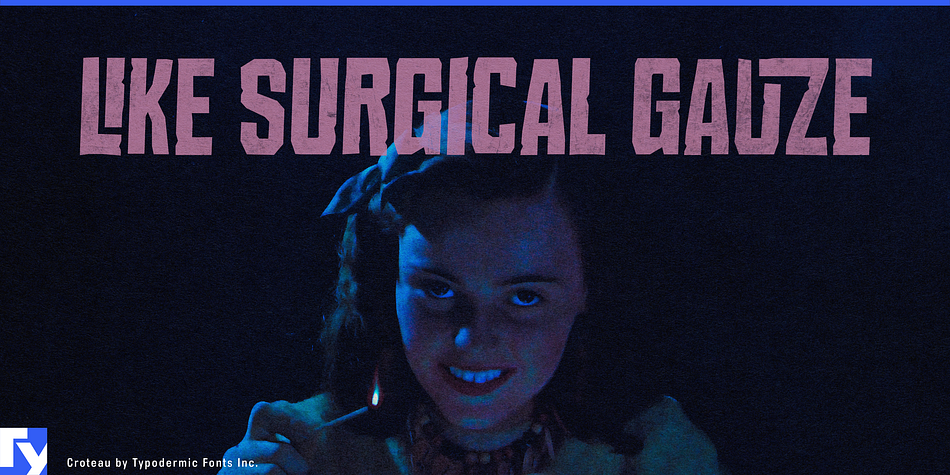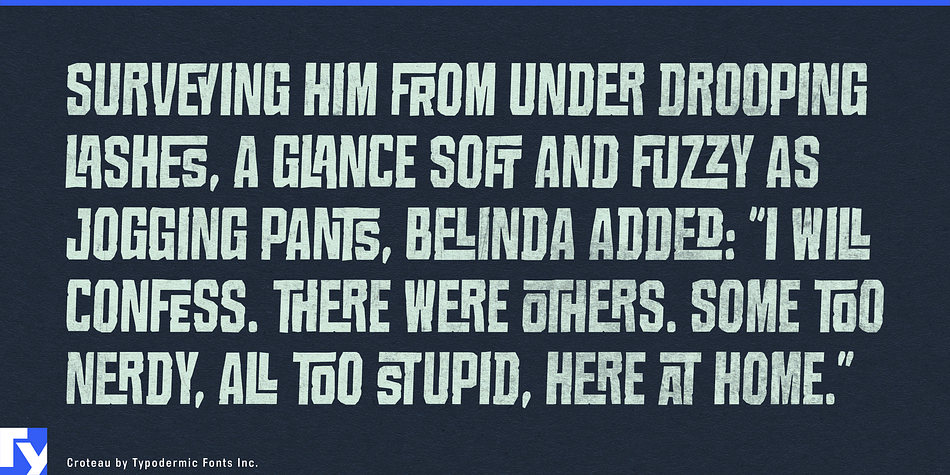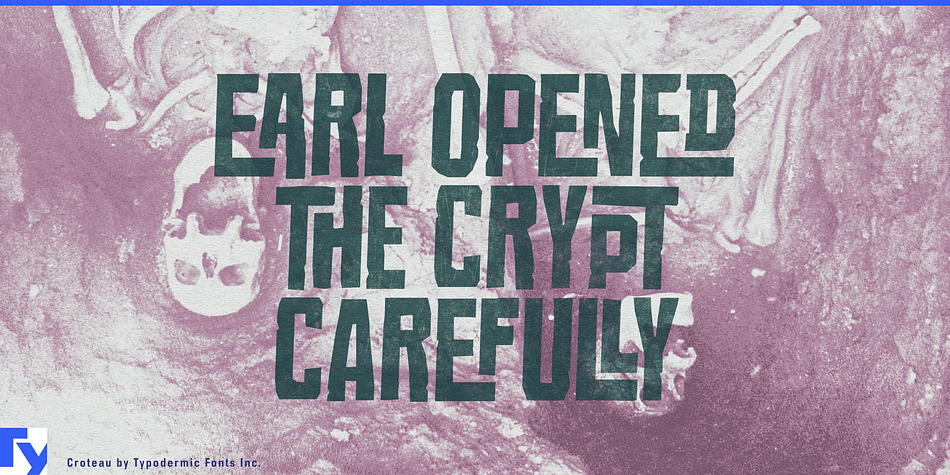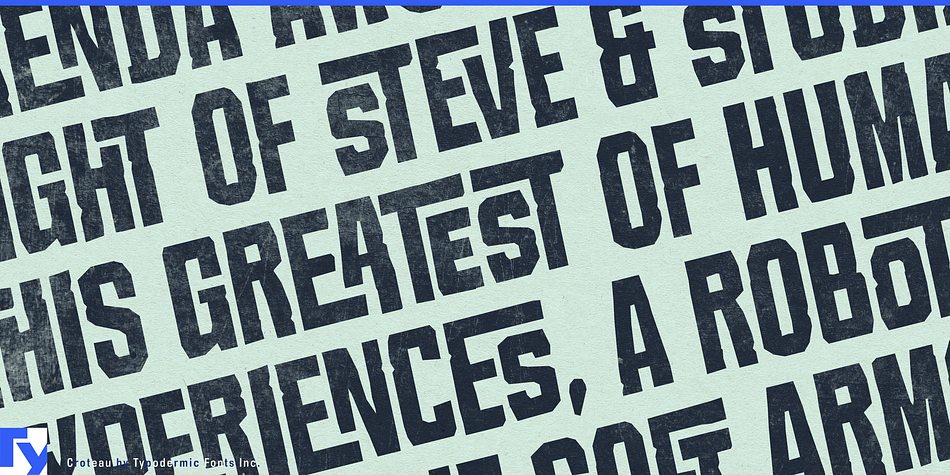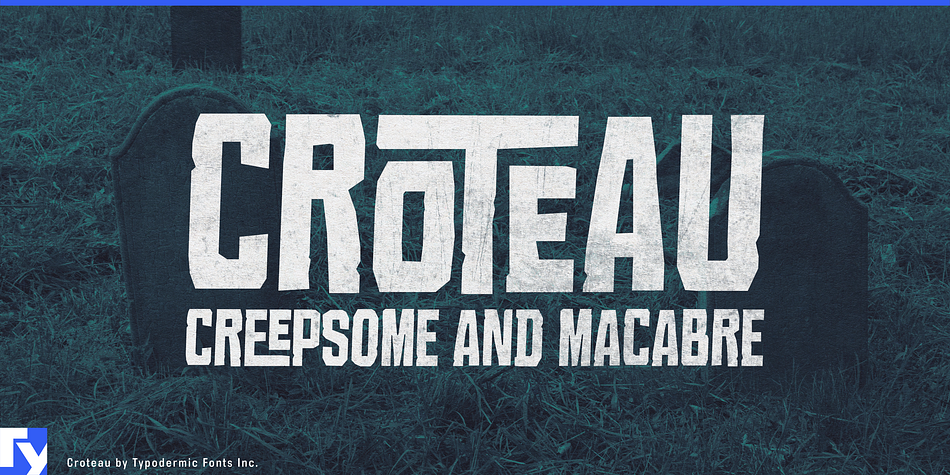
Croteau is a grunge font published by Typodermic Fonts Inc.
The creepsome Croteau is a gruesome throwback to vintage monster movie posters. 250 macabre OpenType ligatures automatically tuck into one another in a ghastly fashion.